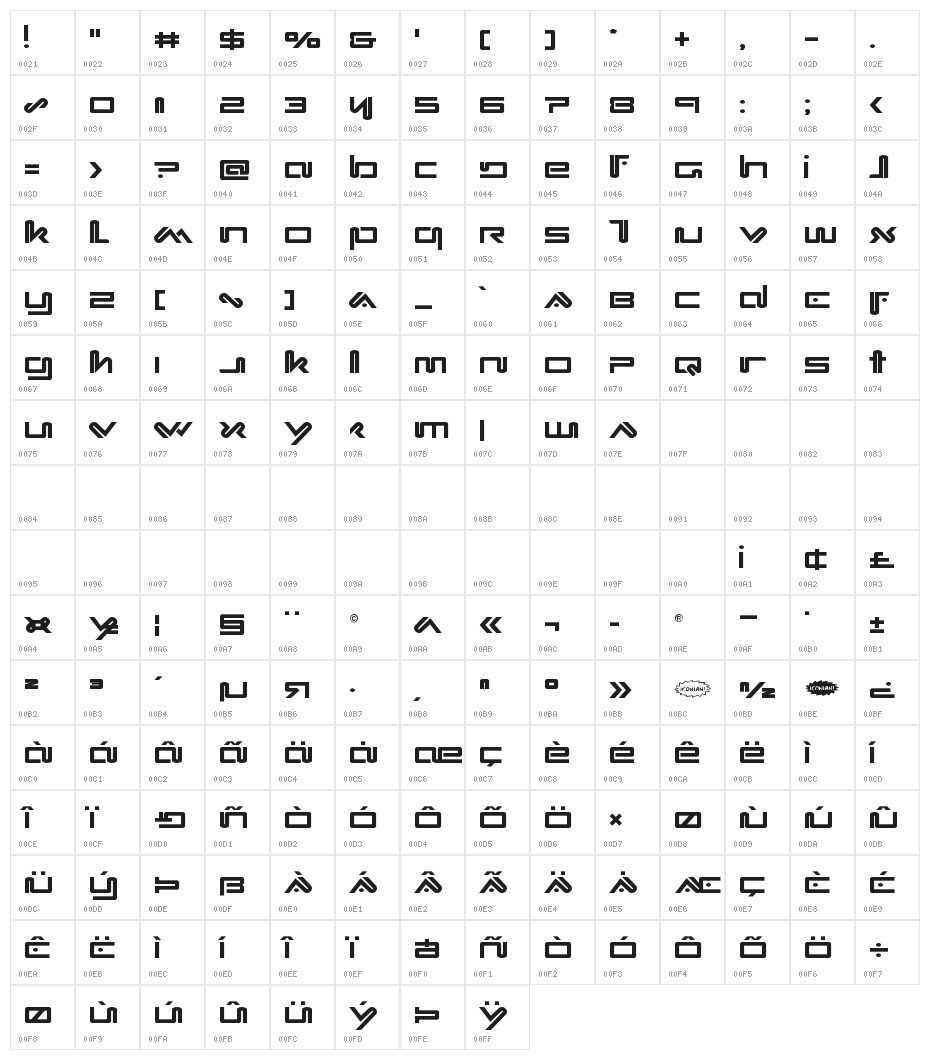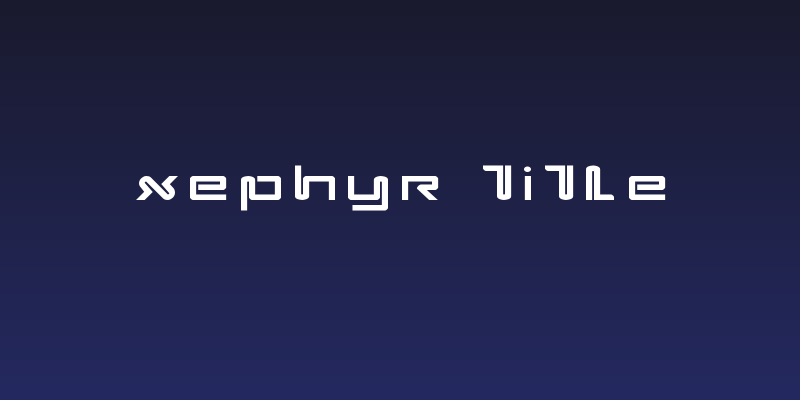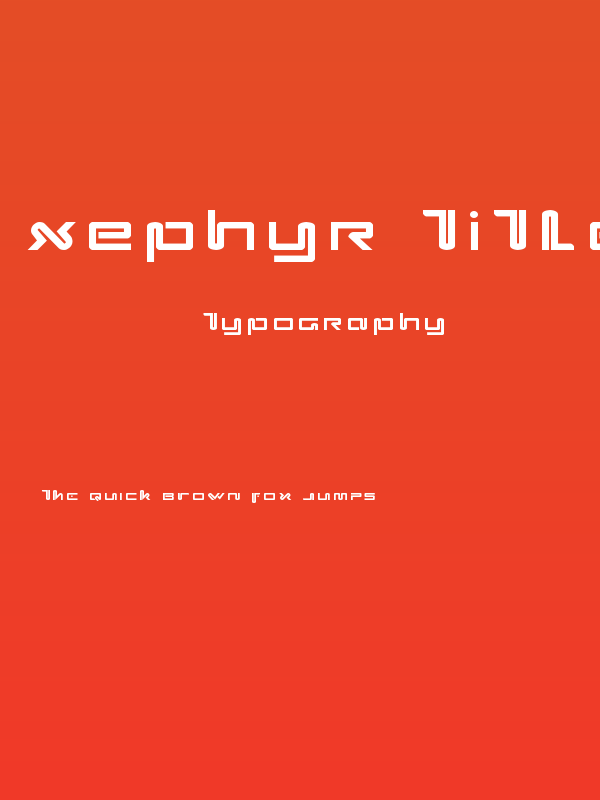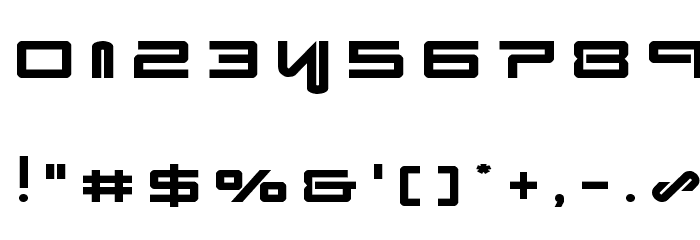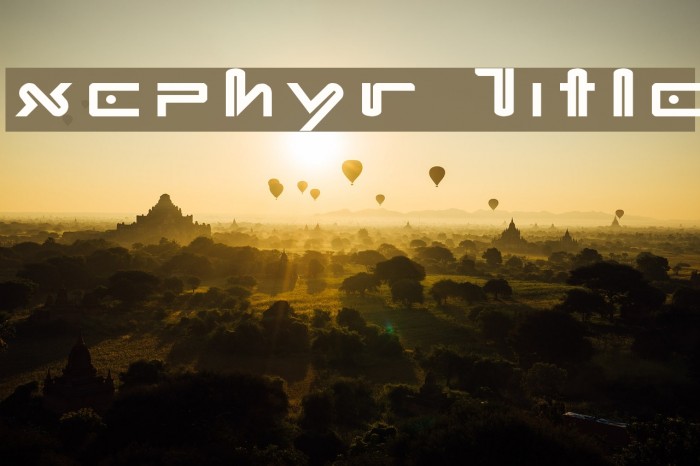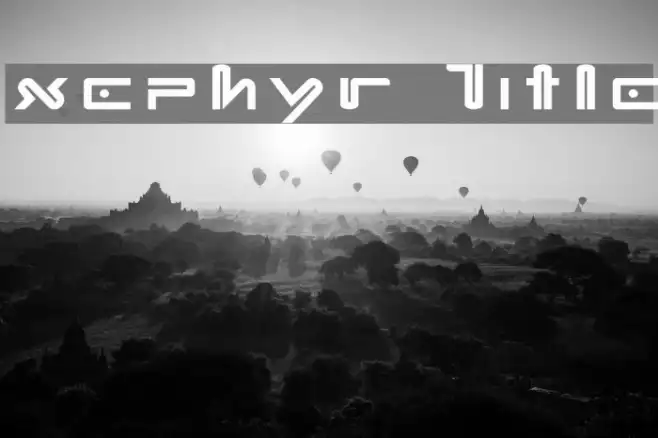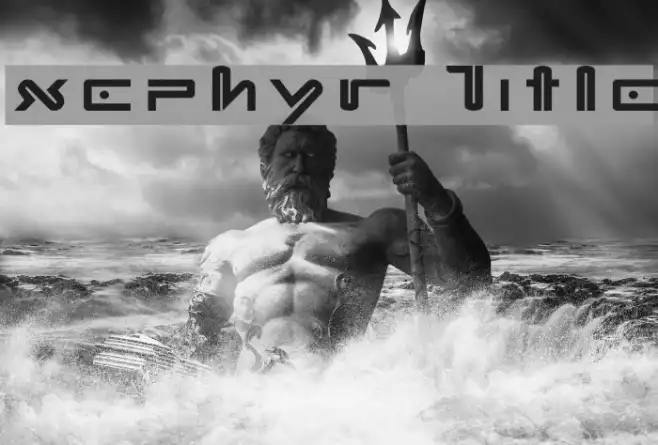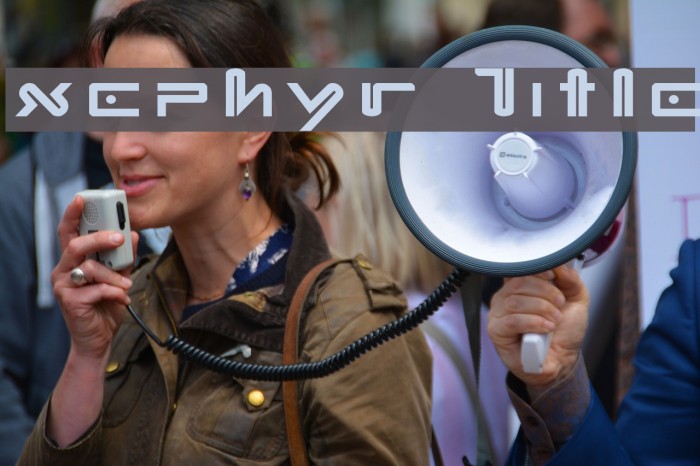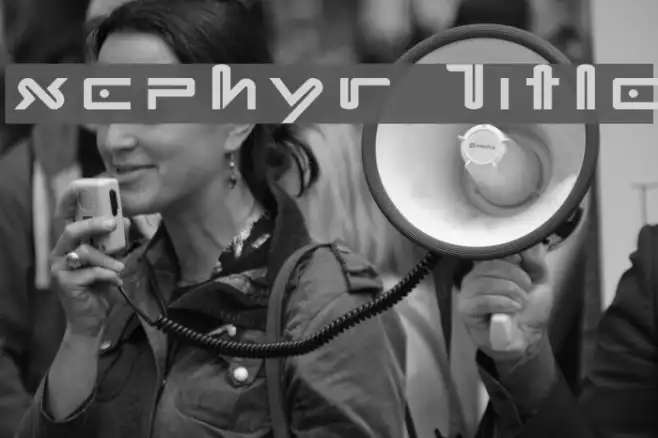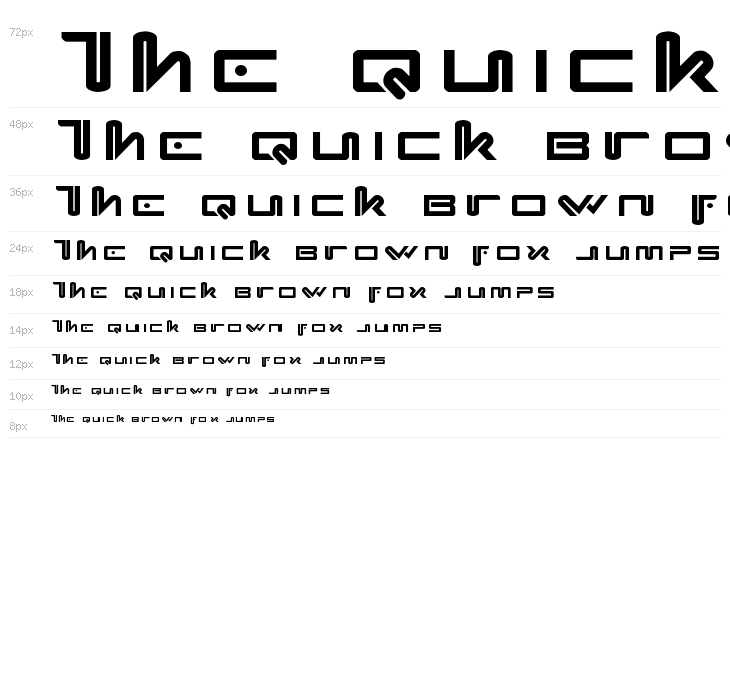
Xephyr Title Font
This font features a futuristic and geometric design, characterized by its angular lines and unique shapes. The letters are crafted with a distinct style that combines both sharp edges and smooth curves, creating a modern and innovative appearance. The uppercase and lowercase letters maintain a consistent design, with some characters exhibiting unconventional forms that add to the font's distinctiveness. The numerals and special characters are designed to match the overall aesthetic, ensuring a cohesive look across all glyphs. This font's bold and striking appearance makes it ideal for projects that require a modern and tech-inspired look.
| Proposed Projects | Ideal for technology branding, sci-fi posters, video game titles, and modern digital interfaces. |